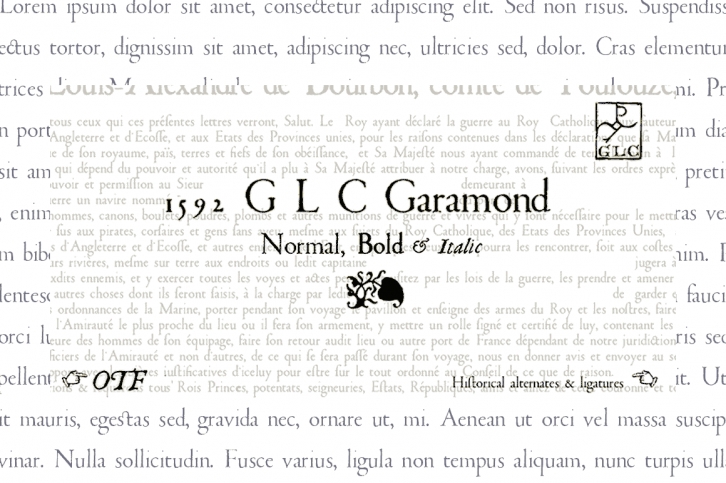
This family was created inspired from the pure Garamond pattern set of fonts used by Egenolff and Berner, German printers in Frankfurt,by the end of sixteen century. All the experts said it was the best and more complete set of the time.
The italic style used with was the Granjon’s one, like in our “1543 Humane Jenson”. Added are a few fleurons from the same printers.